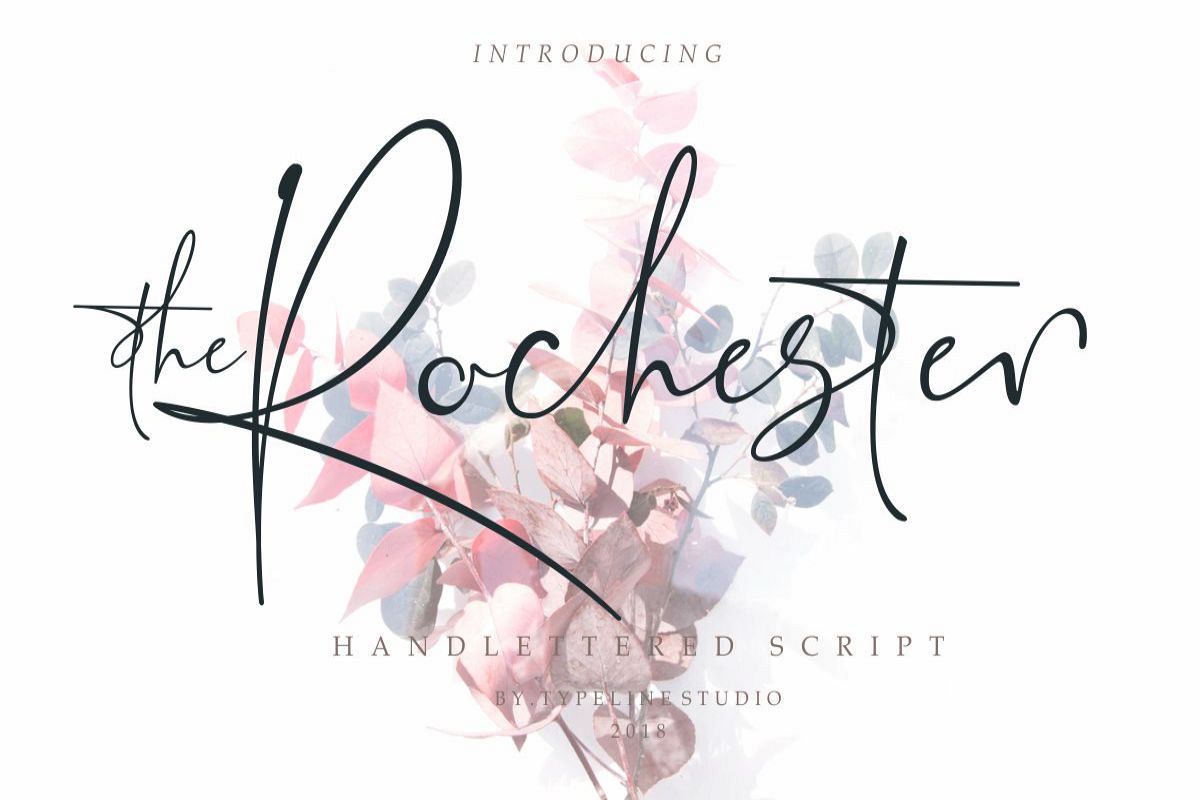
the Rochester // Beautiful Signature
the Rochester // Beatiful SignatureRochester city is inspired this signature font. I have long thought about how I should make a beautiful font signature for writing a word or sentence. As a graphic designer, the rochester signature font is made with a modern taste but with real hand-lettering nuances. So, this font is the embodiment of this idea. This is perfect for LOGO BRANDINGthe Rochester also includes full set of uppercase and lowercase letters, multilingual symbols, numerals and punctuation.What you get ? .the Rochester.otf .the Rochester.ttf .the Rochester.woff .40+ Ligatures .multilingual updateThanks for good day :)